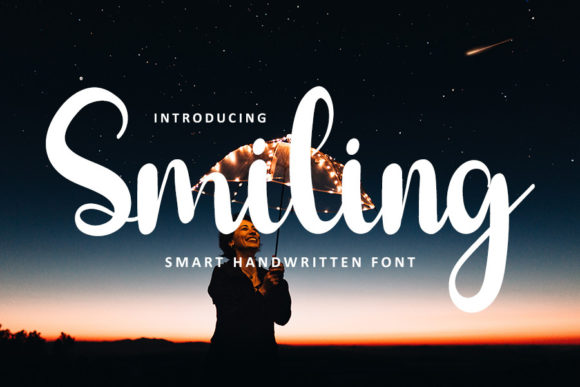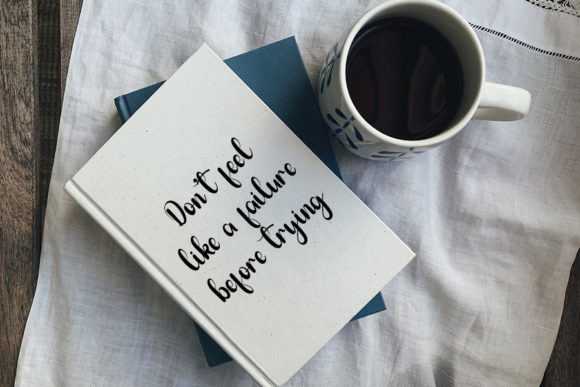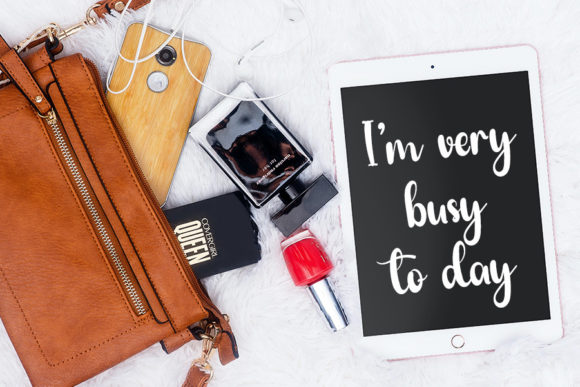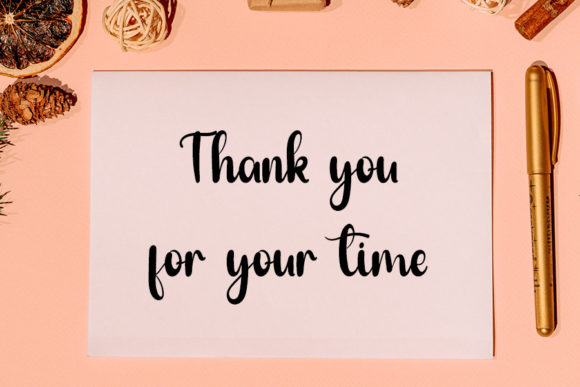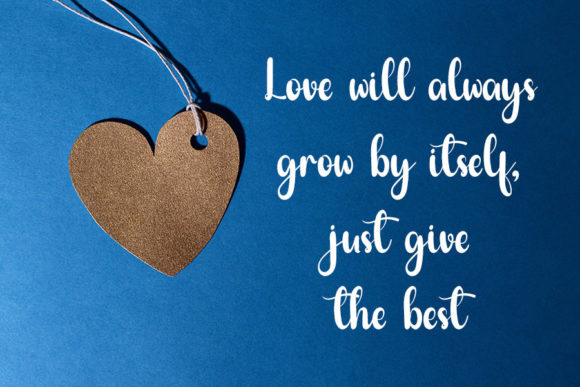
Smiling Font
About Smiling Font
Smiling is a lovely handwritten font that will make your work stand out through its elegant and curvy lines. It is perfect for product packaging, branding project, magazine covers, social media, wedding, or just used to express words above the background.